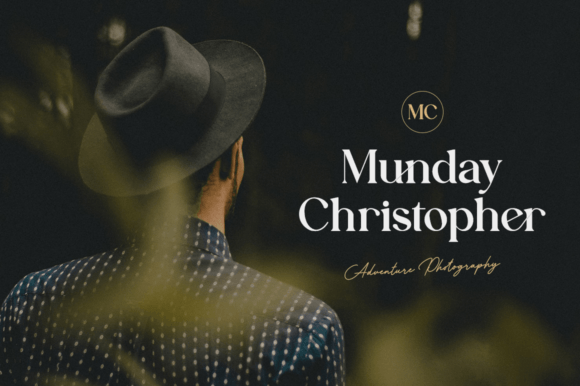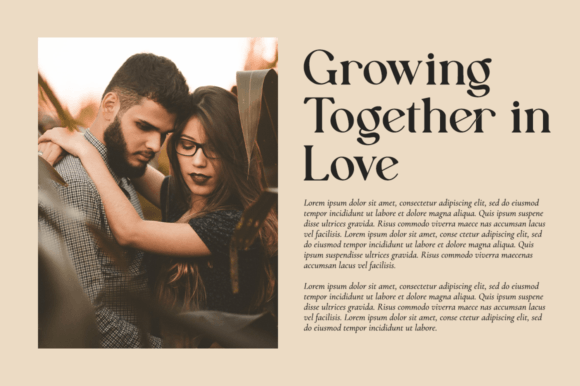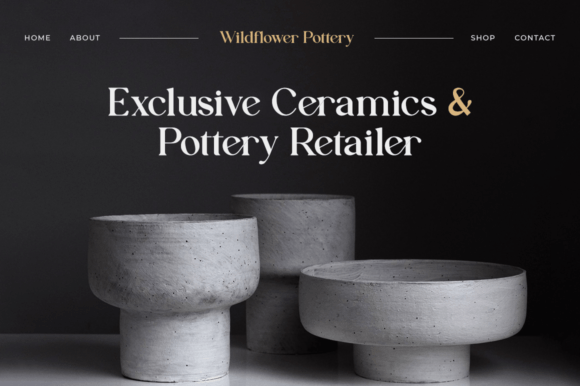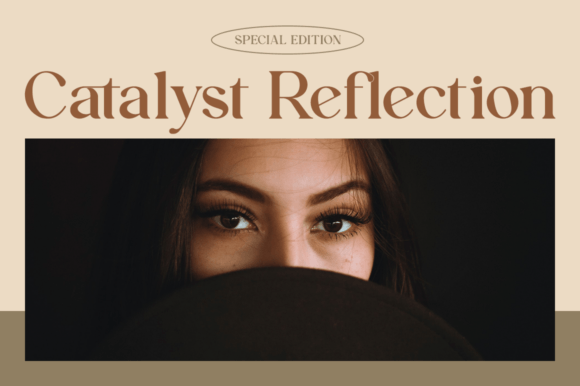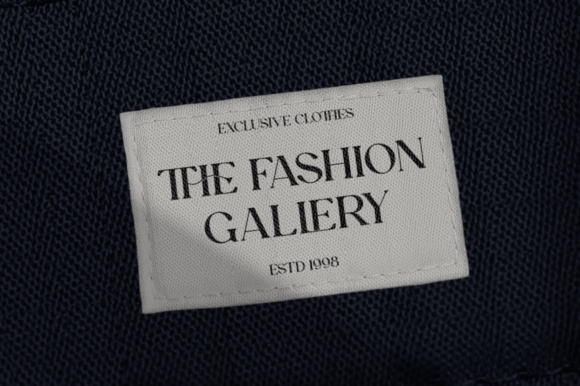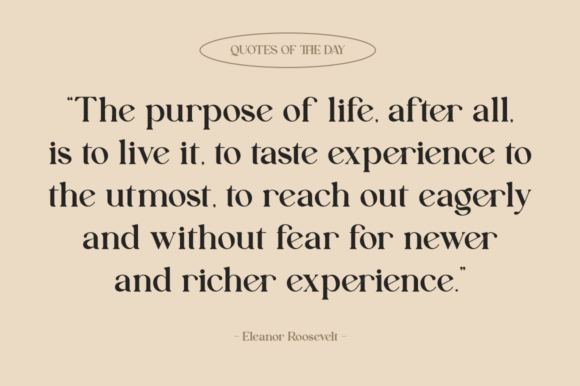
Aesthetiva Font: Elevate Your Designs with Elegance and Sophistication
In the world of typography, a font can make or break a design. Aesthetiva, a stylish and elegant serif font, has been making waves in the design community with its incredibly distinct and timeless style. Whether you’re a seasoned designer or a crafty DIY enthusiast, Aesthetiva is sure to capture your heart and inspire your creativity.
What Makes Aesthetiva Stand Out?
Aesthetiva’s unique charm lies in its classic serif design, which exudes sophistication and refinement. The font’s elegant lines, precise curves, and perfectly balanced proportions make it perfect for a wide range of design applications, from luxury branding and advertising to packaging and editorial design.
One of the standout features of Aesthetiva is its versatility. This font is not just limited to digital designs; it’s also optimized for print. Whether you’re working on a business card, brochure, or poster, Aesthetiva is sure to make a lasting impression.
Aesthetiva is a dream come true for designers and crafters who value precision, elegance, and versatility. Whether you’re working on a client project or a personal craft project, this font is sure to inspire your creativity and help you achieve professional-looking results.
For designers, Aesthetiva offers endless possibilities for creative expression. Use it to create stunning brand identities, elegant stationery, or sophisticated advertising campaigns. For crafters, Aesthetiva is perfect for creating beautiful handmade cards, scrapbooking, and other paper crafts.
Timeless Style for Modern Designs
In today’s fast-paced design world, it’s easy to get caught up in fleeting trends. However, Aesthetiva’s timeless style ensures that your designs will remain relevant for years to come. The font’s classic design is inspired by traditional serif fonts, but with a modern twist that makes it perfect for contemporary designs.
Whether you’re creating a modern brand identity or a vintage-inspired design, Aesthetiva is the perfect choice. Its versatility and elegance make it suitable for a wide range of design applications, from minimalist designs to ornate and intricate compositions.
Get Ready to Fall in Love with Aesthetiva
If you’re looking for a font that will elevate your designs and inspire your creativity, look no further than Aesthetiva. With its incredibly distinct and timeless style, PUA encoding, and versatility, this font is sure to become a favorite in your design arsenal.